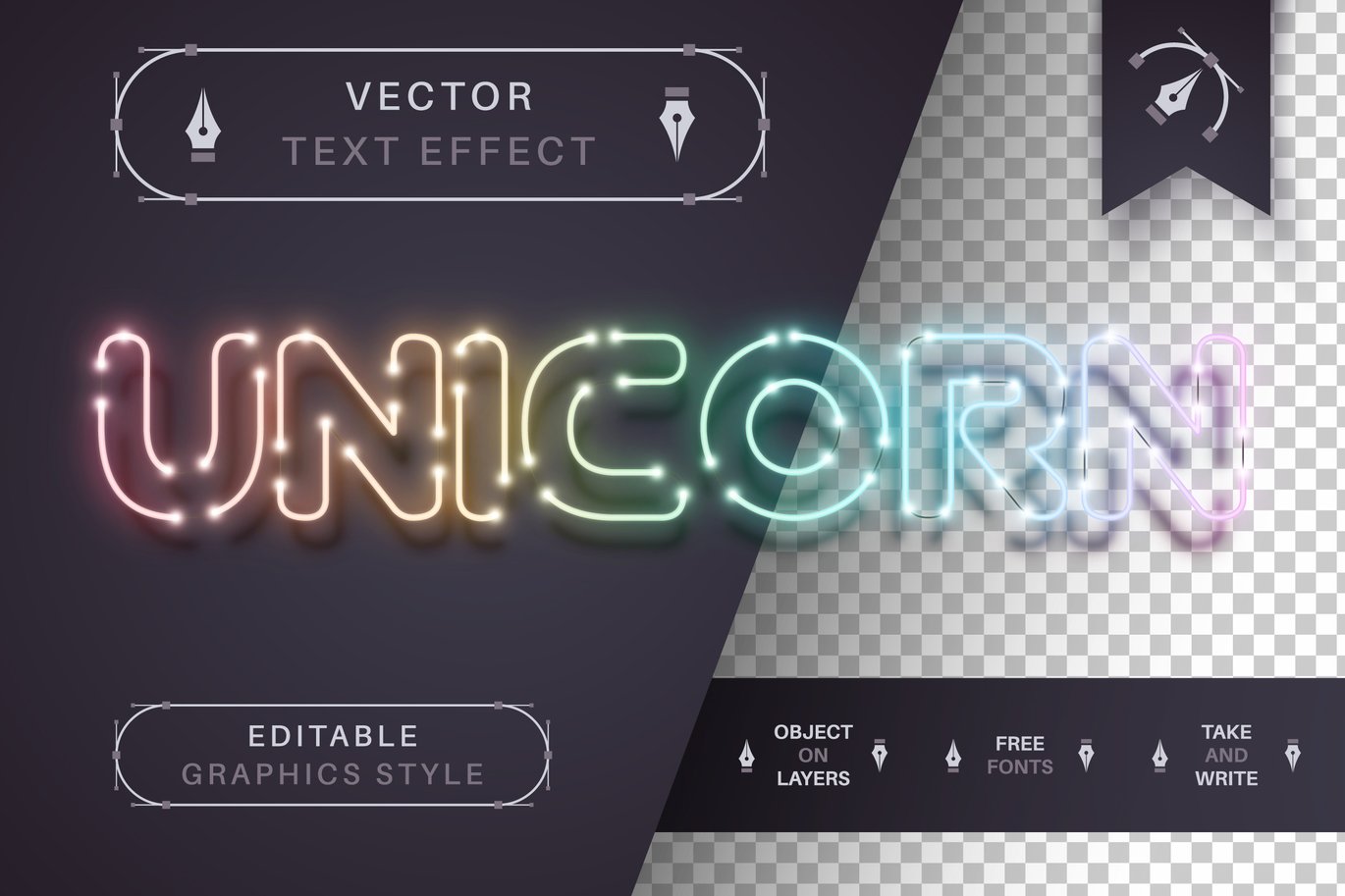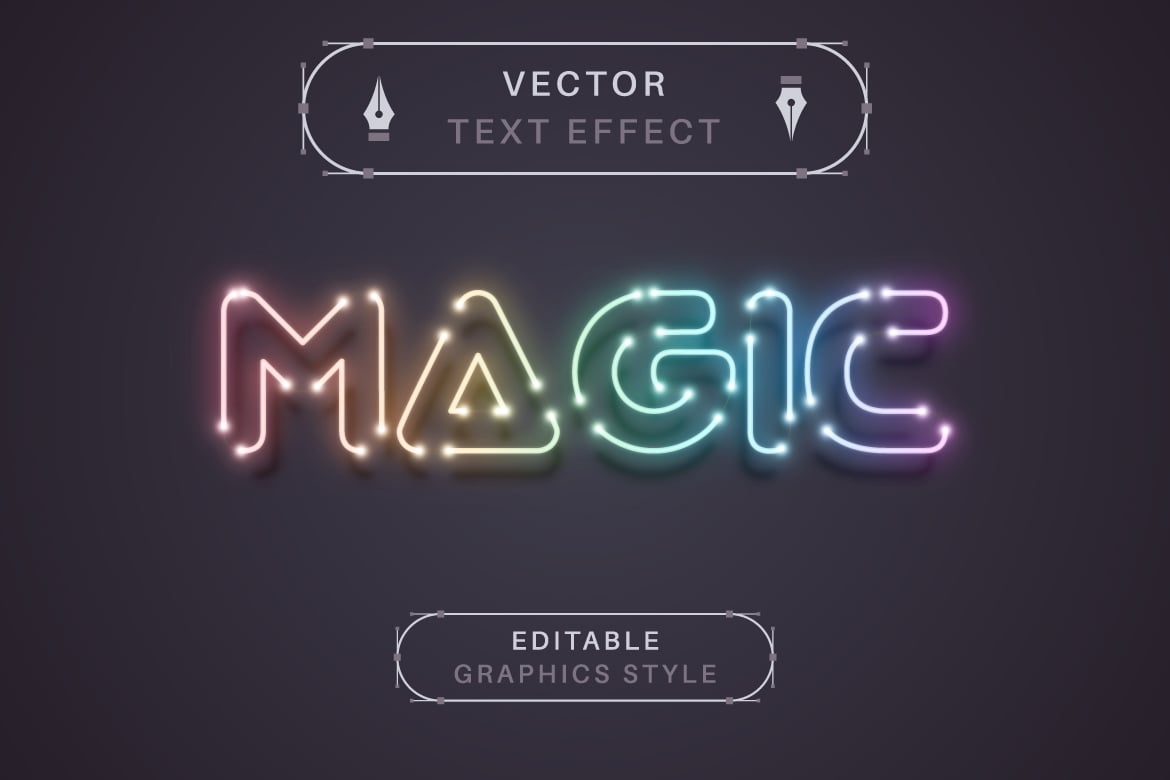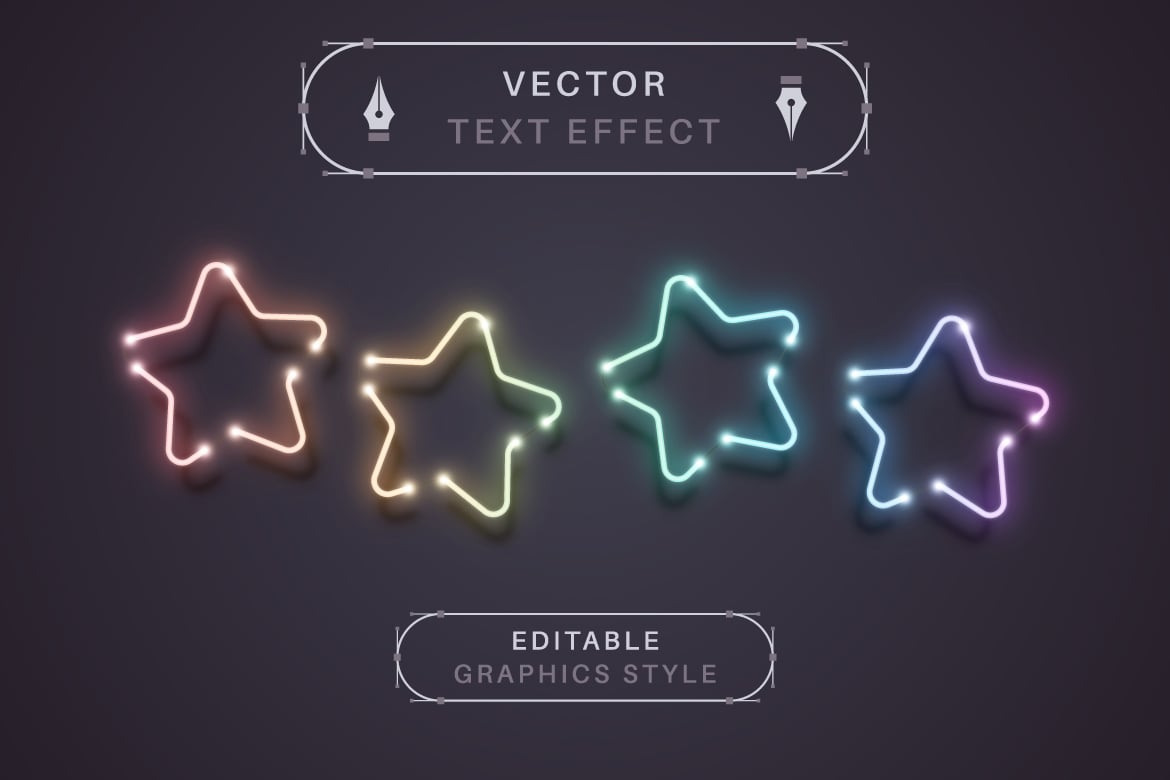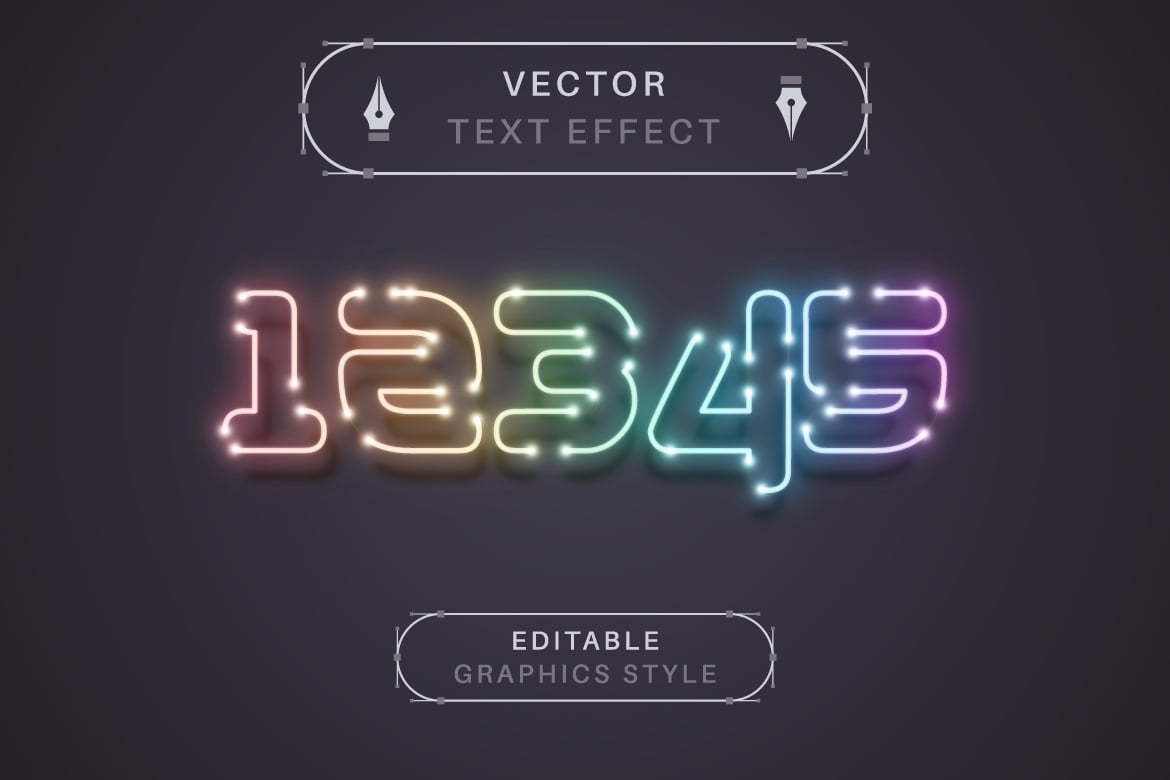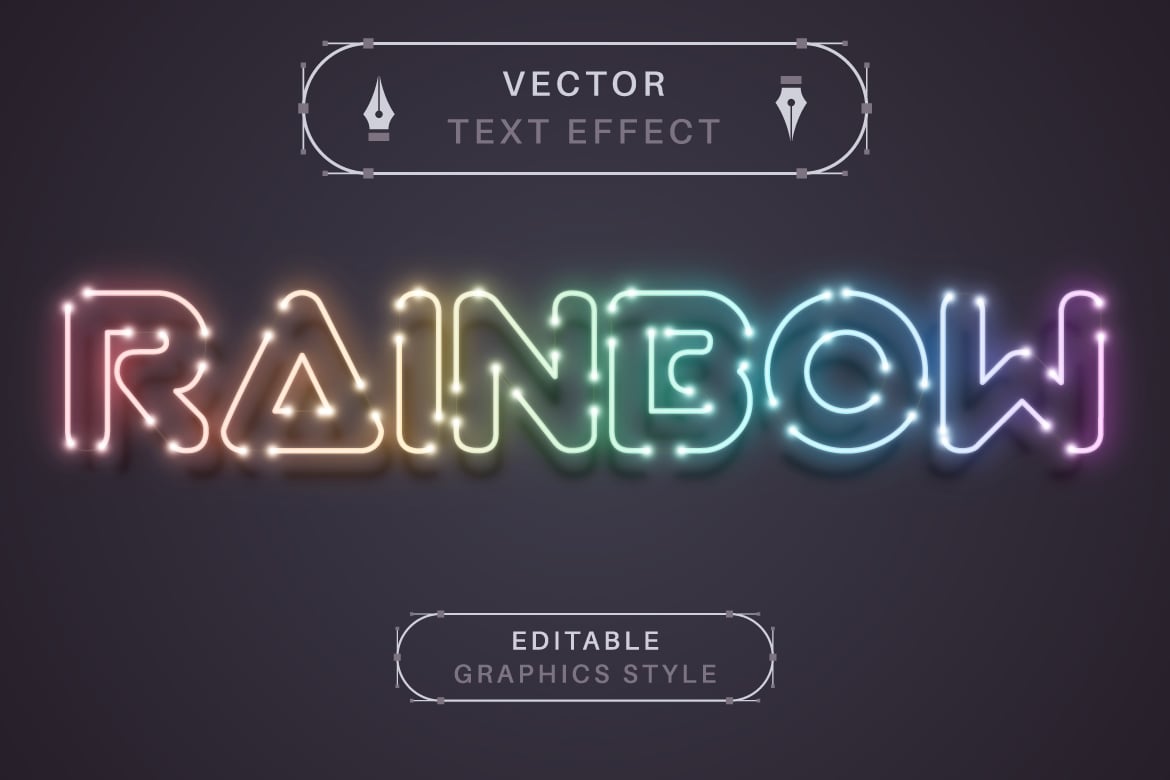
Gradient Garland – Editable Text Effect Font Style
I’m glad to introduce my new vector text effect “Gradient Garland”.
Be as creative as you like to be in expressing yourself using this unique text effects.
Effect is perfect for any project that needs a unique handy touch whatever else your imagination leads you to!